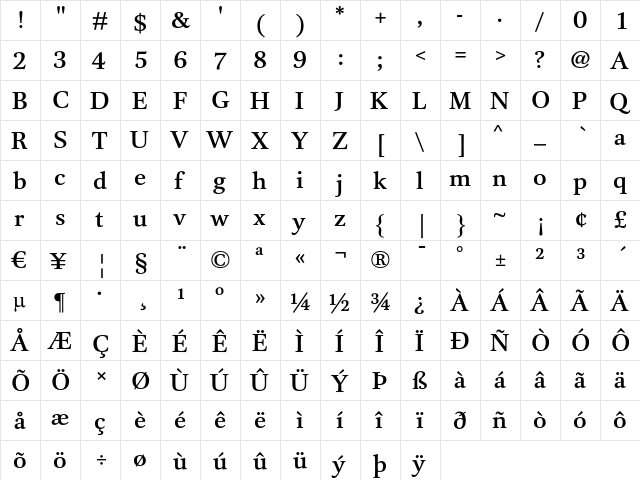
DTLUnicoT Medium Regular
| Foundry | Dutch Type Library |
| Designer | Michael Harvey |
Design Context for DTLUnicoT Medium Typeface
DTLUnicoT Medium offers clean, dependable letterforms without strong stylistic allegiance, making it a practical choice for designers who need flexibility.